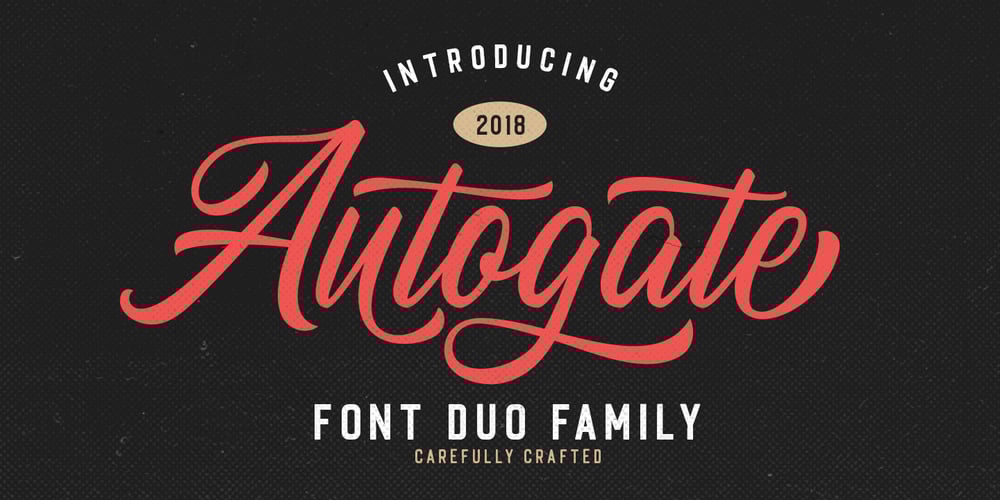
Autogate
Autogate font
Autogate Font Family was designed by Hendry Juanda and published by Letterhend. Autogate contains 6 styles and family package options. Autogate Font Duo is a pair of script and sans fonts that perfectly work together. The classic feel is really great for you who needs a typeface for logotypes, apparel, invitations, branding, packaging, advertising, and more. This typeface comes in uppercase, lowercase, punctuations, symbols & numerals, 09 stylistic set alternate, ligatures, has multi-lingual support and is already PUA encoded.